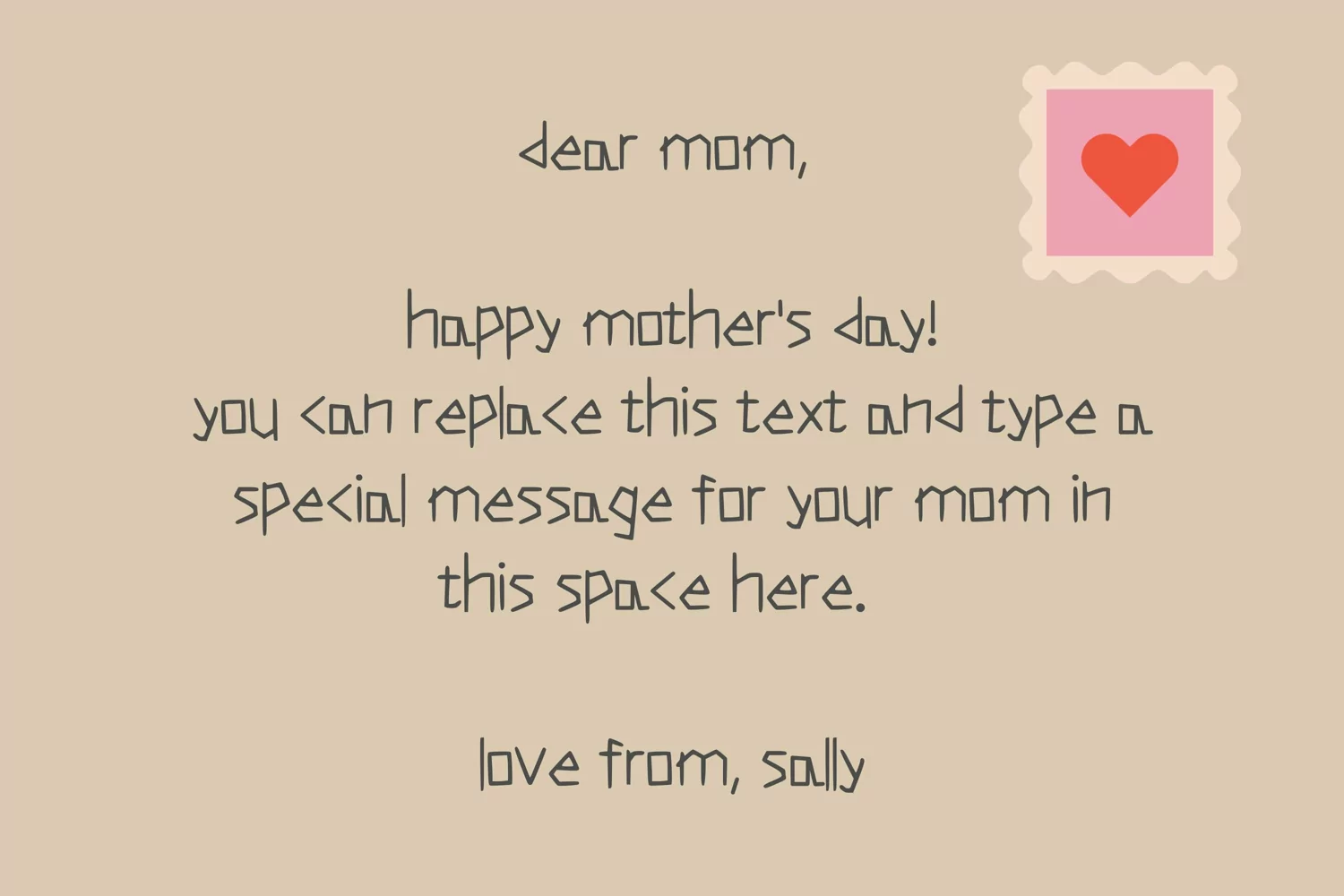
Koyigellia is a playful and friendly handwriting font. You can use it in various projects such as greeting cards, invitations, stickers, posts, decorations, and much more!